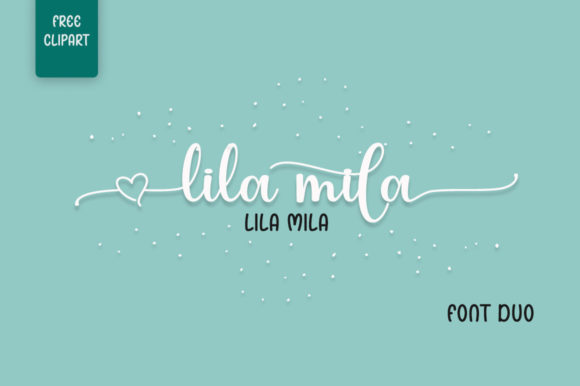
Lilamila Font: Elevate Your Design with Luxury and Versatility
In the world of typography, fonts play a crucial role in conveying the tone and aesthetic of a design project. Among the numerous fonts available, Lilamila stands out as a versatile duo font that combines the elegance of script with the modernity of sans serif. This article will delve into the features, benefits, and applications of Lilamila font, exploring how it can add a luxury spark to your design endeavors.
What is Lilamila Font?
Lilamila is a thoughtfully crafted font duo that includes both a script and a sans serif font. This pairing offers designers the flexibility to create visually appealing and cohesive designs. The script font exudes elegance and sophistication, while the sans serif font provides a clean and modern contrast. Together, they form a versatile toolkit for designers looking to add a touch of luxury to their projects.
Key Features of Lilamila Font
- Versatility: The duo font includes both script and sans serif styles, allowing for a wide range of design applications.
- Luxury Aesthetic: The elegant script font and the clean sans serif font are designed to add a luxury spark to any design.
Benefits of Using Lilamila Font
The benefits of incorporating Lilamila font into your design projects are numerous. Here are some of the key advantages:
1. Enhanced Visual Appeal
Lilamila font’s luxury aesthetic significantly enhances the visual appeal of any design. The script font’s flowing lines and elegant ligatures bring a sense of sophistication, while the sans serif font offers a crisp and contemporary look.
2. Versatile Design Options
The duo nature of Lilamila font provides designers with versatile design options. You can use the script font for headings, quotes, or any element where you want to make a statement. The sans serif font is ideal for body text, lists, and other content that requires clarity and readability.
3. Time-Saving and Efficient
4. Wide Range of Applications
Lilamila font’s versatility makes it suitable for a wide range of applications, including:
- Branding and Logo Design: Create memorable and elegant logos that stand out.
- Packaging Design: Add a touch of sophistication to product packaging.
- Advertising and Marketing Materials: Elevate your ads and marketing materials with stylish typography.
- Web Design: Enhance the aesthetic of your website with a unique and luxurious font.
- Print Design: Ideal for brochures, posters, and business cards.
How to Use Lilamila Font Effectively
To make the most of Lilamila font, consider the following tips:
1. Pairing Fonts
When using both the script and sans serif fonts, ensure they complement each other. Use the script font for headings and highlights, and the sans serif font for body text and other details. This contrast will create a visually appealing hierarchy in your design.
2. Utilize Ligatures and Glyphs
Take advantage of the PUA encoding to explore the font’s ligatures and glyphs. These special characters can add unique touches to your design, making it more engaging and personalized.
3. Adjust Font Sizes and Weights
Experiment with different font sizes and weights to create a dynamic and engaging design. For instance, you can use a larger size for headings and a smaller size for body text.
4. Consider the Context
Tailor your font choices to the context of your design. For example, a more formal project might call for a restrained use of the script font, while a creative project might allow for more playful applications.
Lilamila font is a powerful tool for designers looking to infuse their projects with luxury and versatility. Its combination of elegant script and modern sans serif styles, along with PUA encoding for easy access to glyphs and ligatures, makes it an excellent choice for a wide range of design applications. By incorporating Lilamila font into your projects, you can create visually stunning and effective designs that leave a lasting impression.